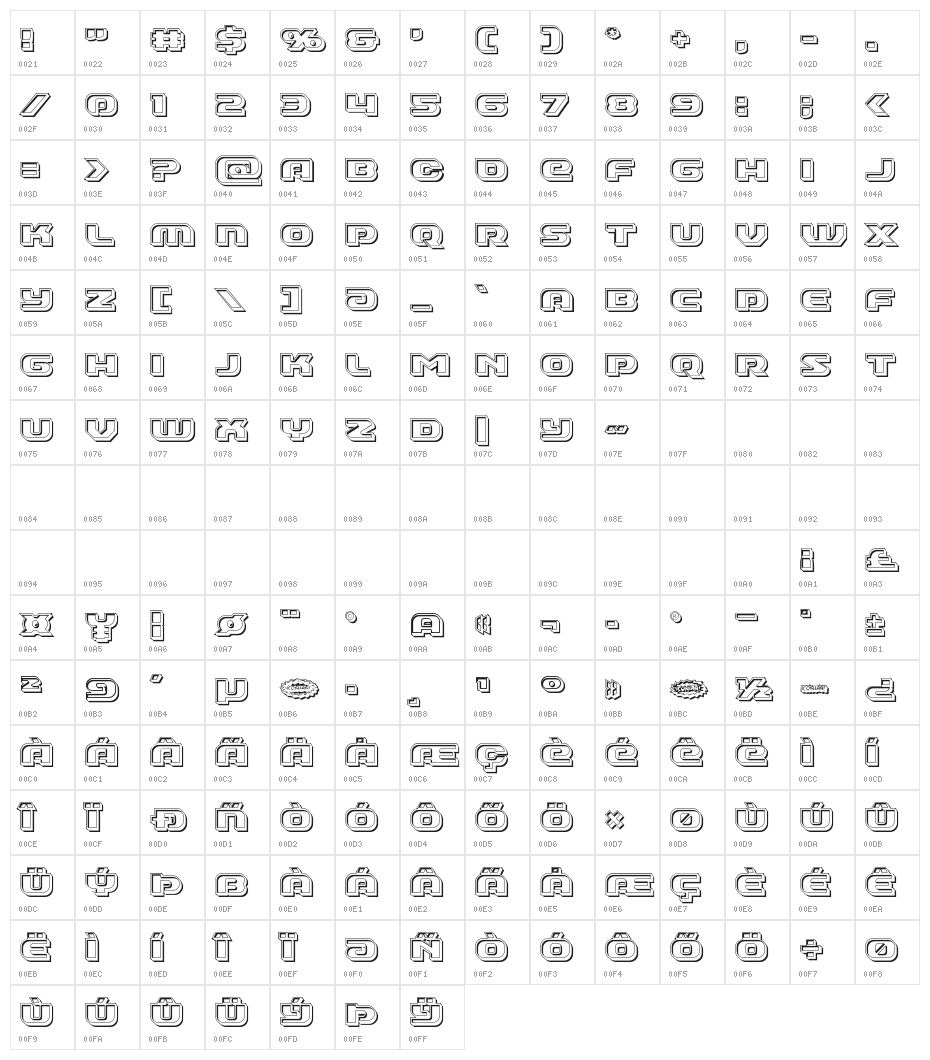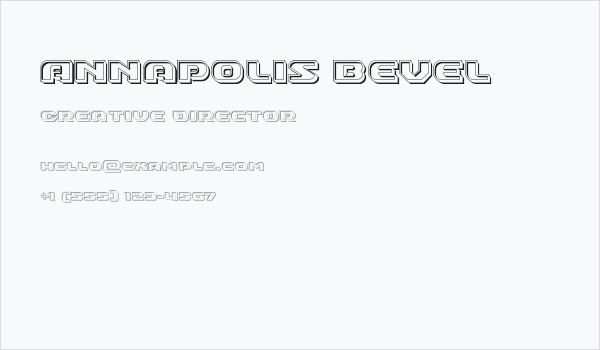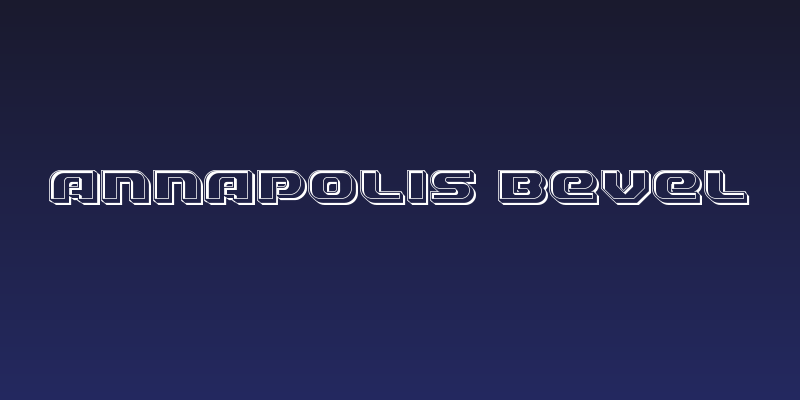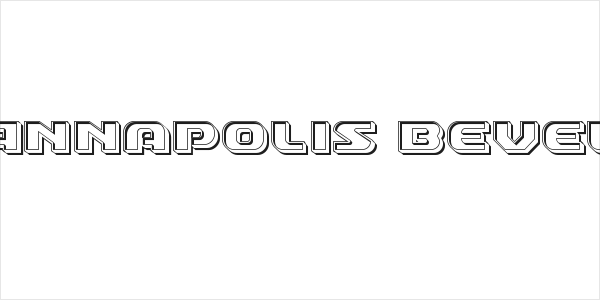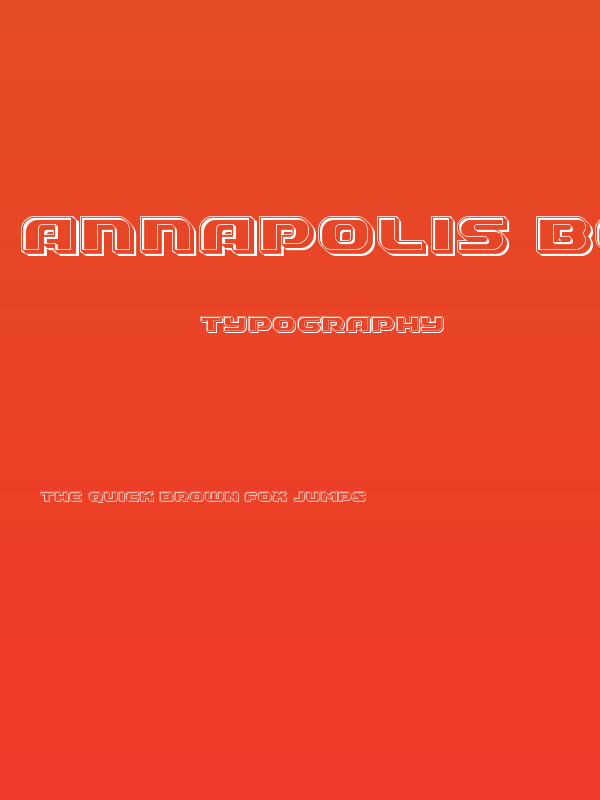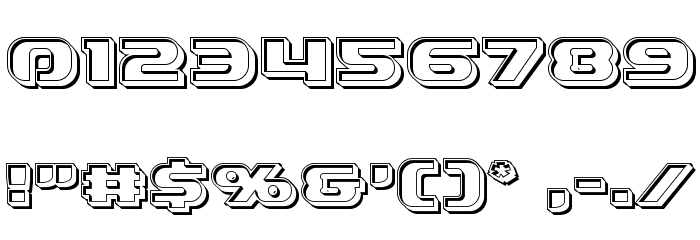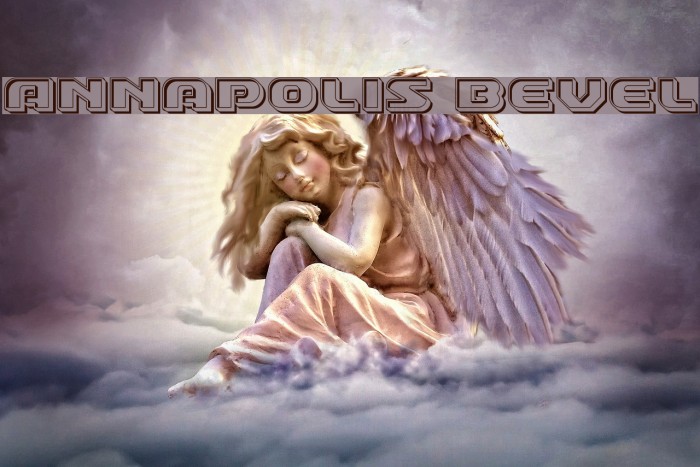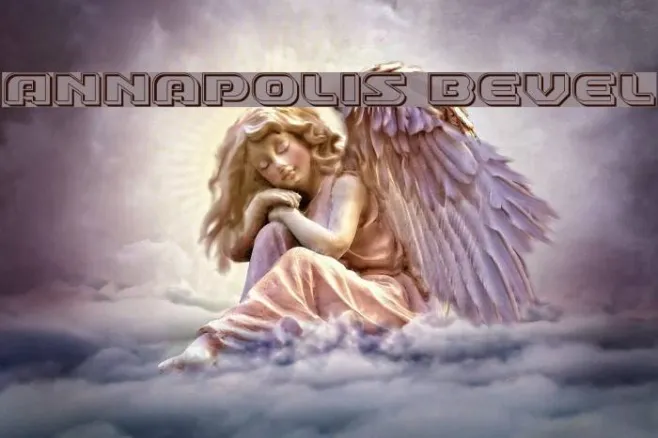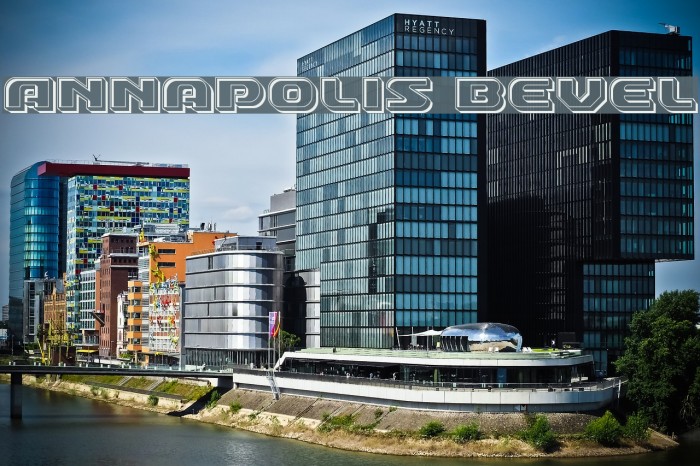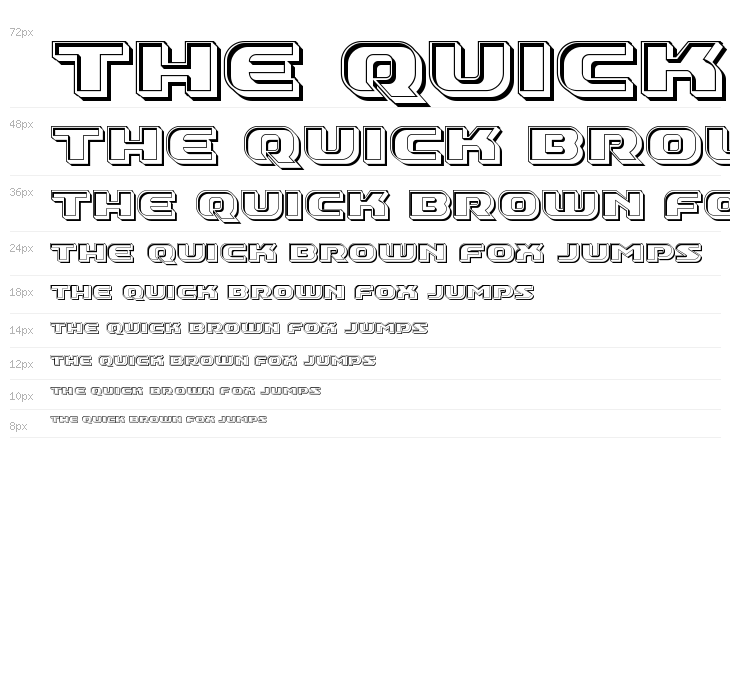
Annapolis Bevel Font
Annapolis Bevel Description
This font features a bold, geometric style with a distinct three-dimensional bevel effect. The characters are outlined with a double line, creating a sense of depth and dimension. The uppercase letters are uniform in height, while the lowercase letters maintain a consistent style with slightly reduced size. The numbers and special characters follow the same design principles, ensuring a cohesive look across all glyphs. The font's strong lines and angular shapes give it a modern and industrial feel, making it stand out in any design project.
| Proposed Projects | Ideal for logos, posters, and headlines where a modern, industrial look is desired. |